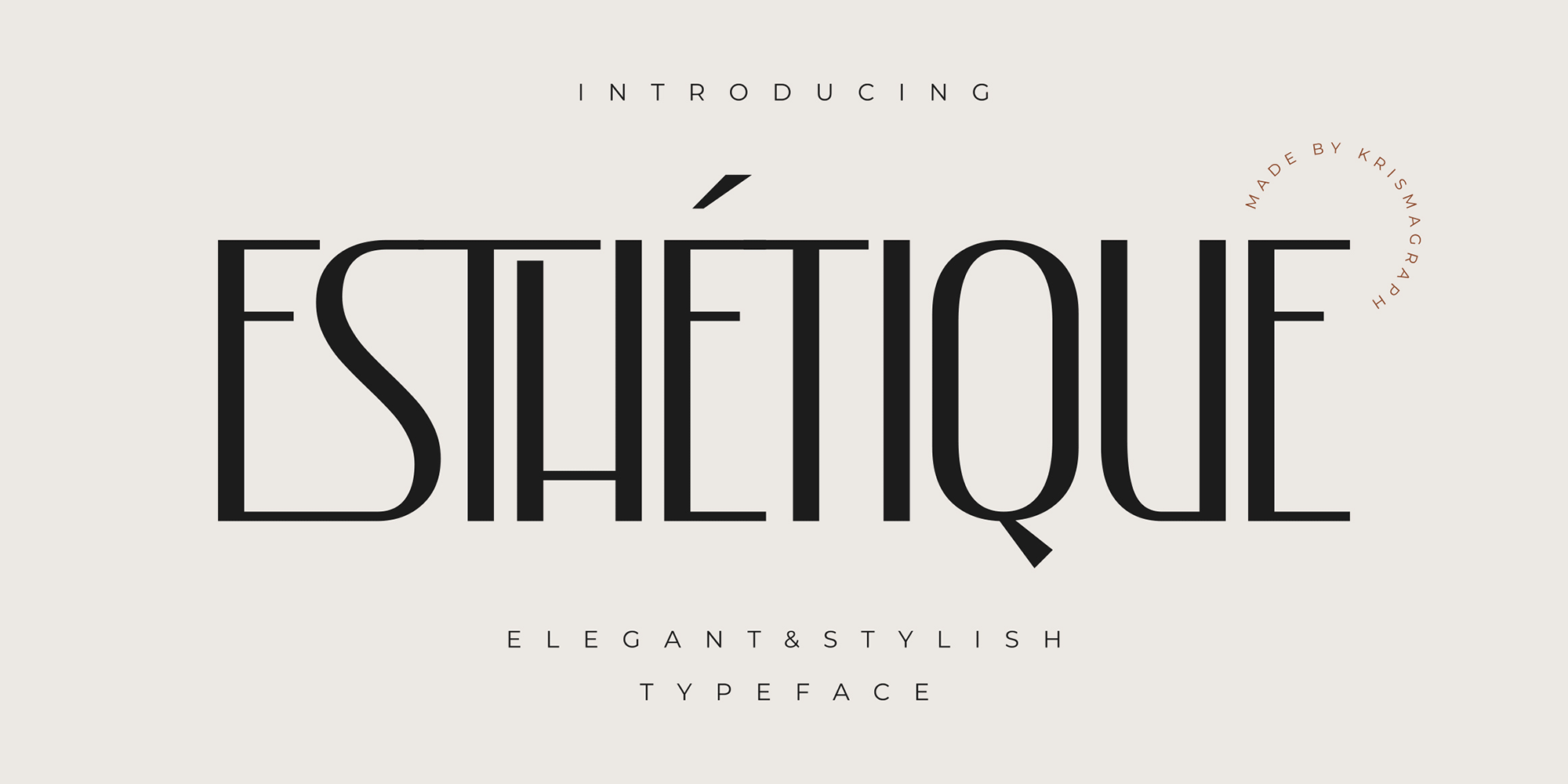
This refined font is perfect for luxury beauty brands, high-end spa services, aesthetic medical practices, premium skincare packaging, elegant salon branding, sophisticated wellness centers, upscale cosmetic surgery clinics, and exclusive beauty treatment marketing. Its graceful character makes it ideal for projects requiring aesthetic sophistication and beauty industry elegance.
Esthetique Font is exciting because it embodies the pursuit of perfect beauty with letterforms that reflect the precision and artistry of aesthetic enhancement and cosmetic refinement. The font features flawless proportions, elegant curves, and sophisticated details that mirror the meticulous attention to beauty and visual harmony found in premium aesthetic services. Its refined personality instantly communicates luxury, expertise, and the transformative power of professional beauty enhancement.
The Esthetique Font family typically includes multiple elegant weights and sophisticated variations, along with beauty symbols, aesthetic ornaments, and luxury decorative elements. Many versions feature stylistic alternates, refined ligatures, and premium glyphs that enhance the sophisticated beauty industry aesthetic and professional credibility.
Whether you're developing luxury beauty brands, aesthetic medical practices, or premium wellness services, Esthetique Font Free Download provides authentic beauty industry authority with sophisticated functionality. This typeface transforms standard communications into elegant statements that resonate with discerning clients who expect exceptional results and premium service quality. Its distinctive character adds immediate aesthetic credibility while celebrating the artistry of Esthetique Font Free Download and the transformative power of professional beauty enhancement that helps individuals achieve their most confident and beautiful selves.